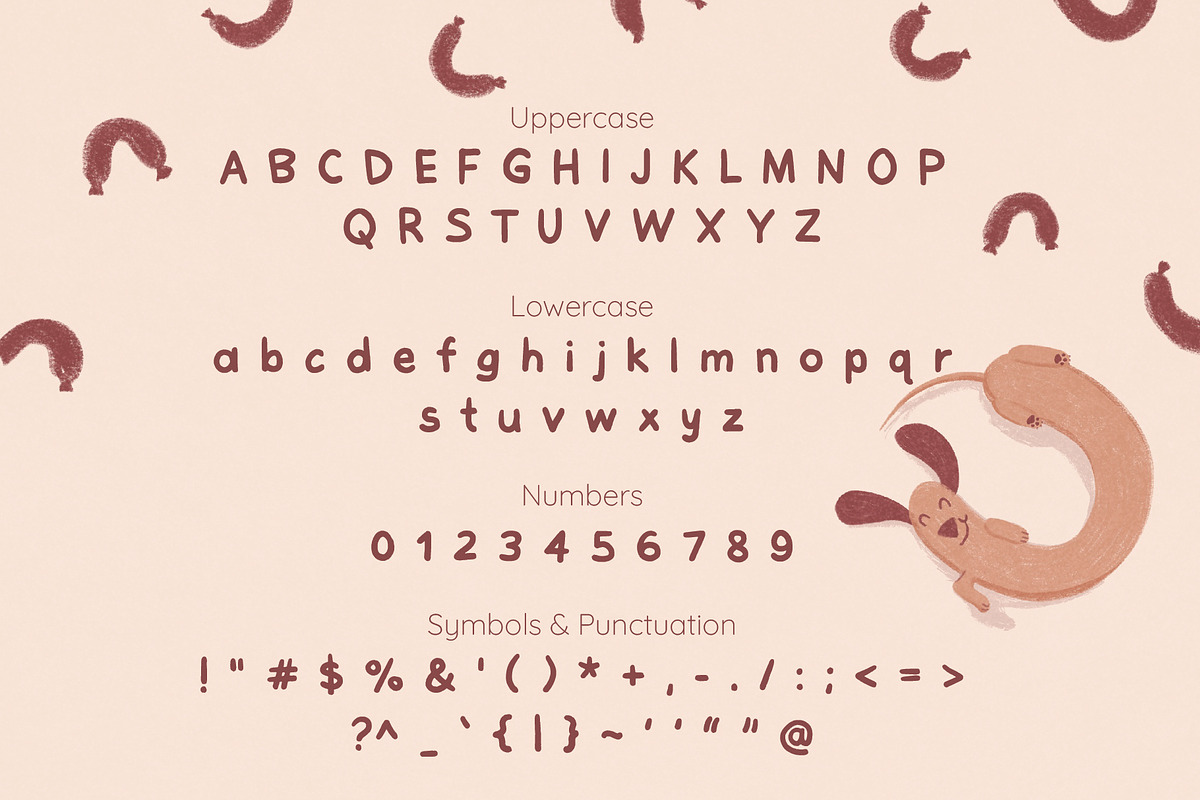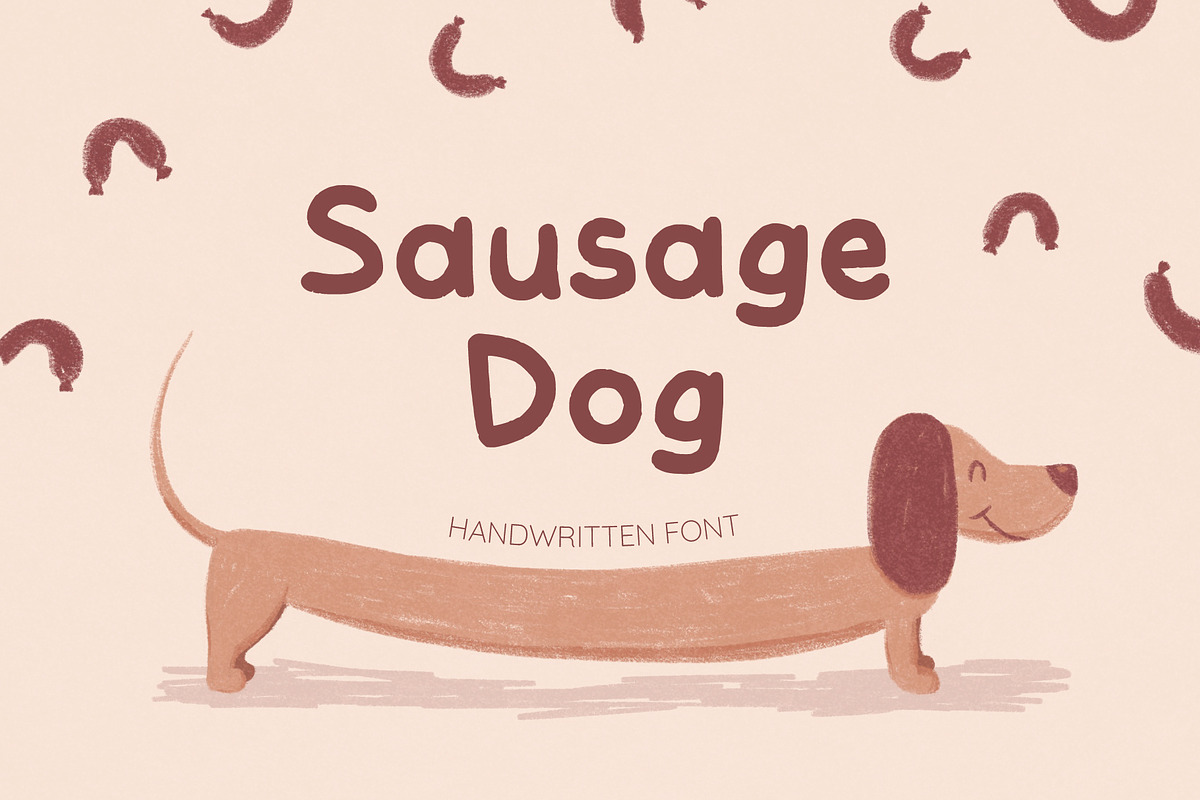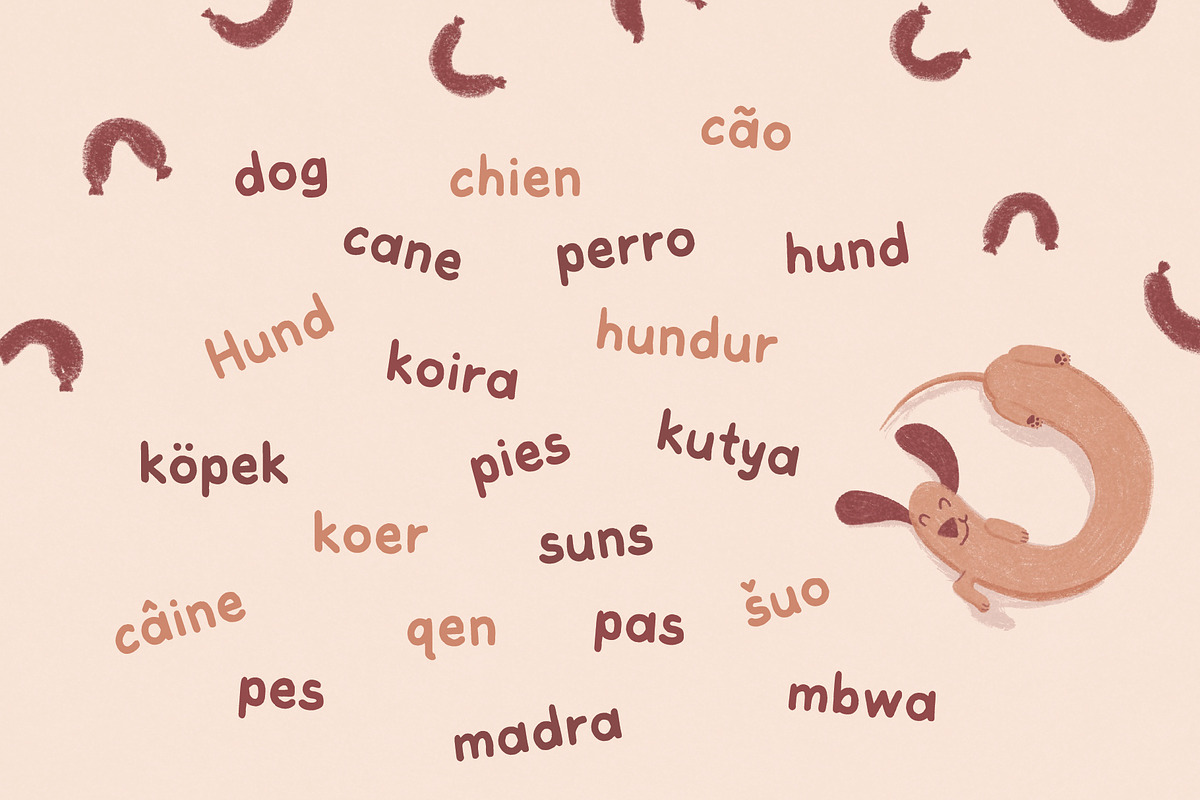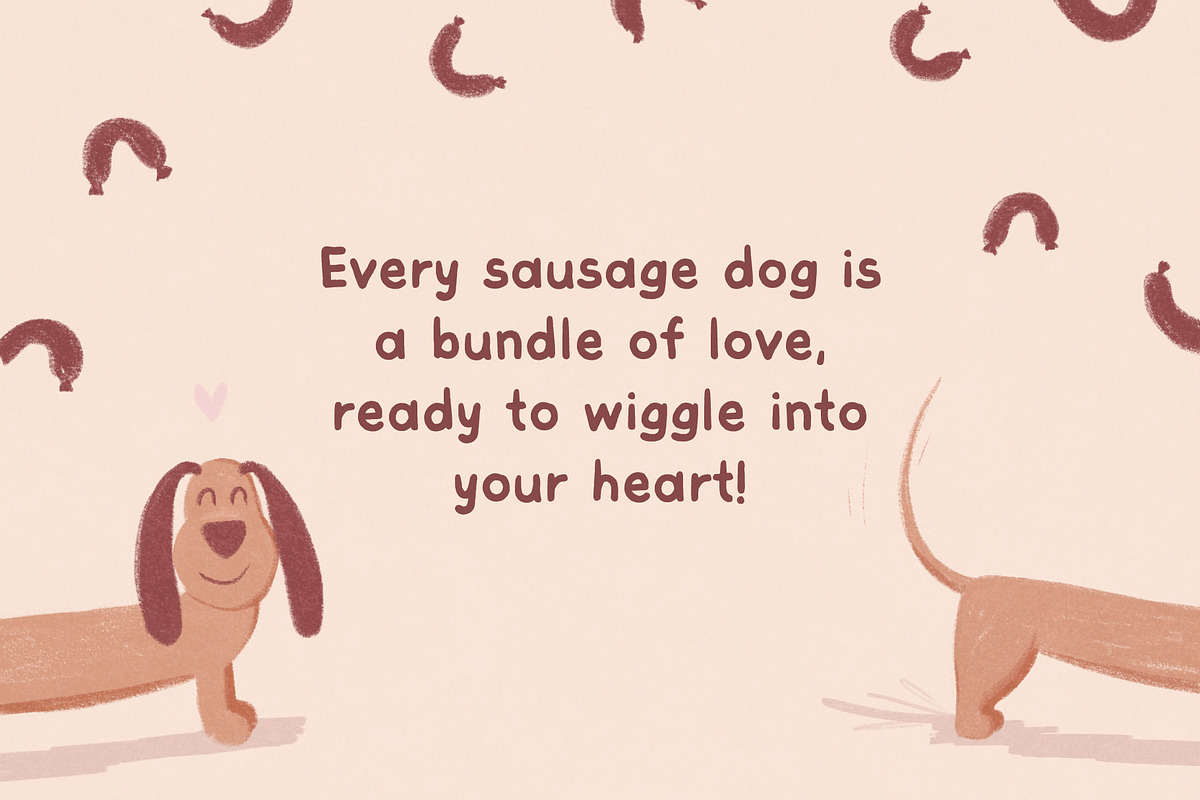
Sausage Dog
Sausage Dog is an adorable, handwritten font with smooth, rounded letterforms and slightly thicker strokes that bring a playful, warm vibe to any design. Perfect for children's books, greeting cards, and quirky logos, this font adds a fun and friendly touch to your projects.
This font fully supports a wide range of languages, including English, French, Spanish, Portuguese, German, Italian, Swedish, Norwegian, Danish, Finnish, Icelandic, Polish, Czech, Slovak, Hungarian, Turkish, Estonian, Latvian, Lithuanian, Romanian, Albanian, Croatian, Bosnian, Slovenian, Serbian (Latin script), Irish, and Swahili. Test the font above to ensure it suits your project.